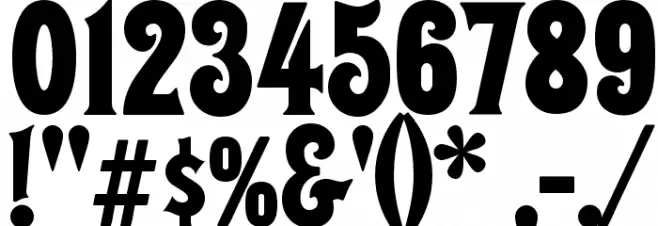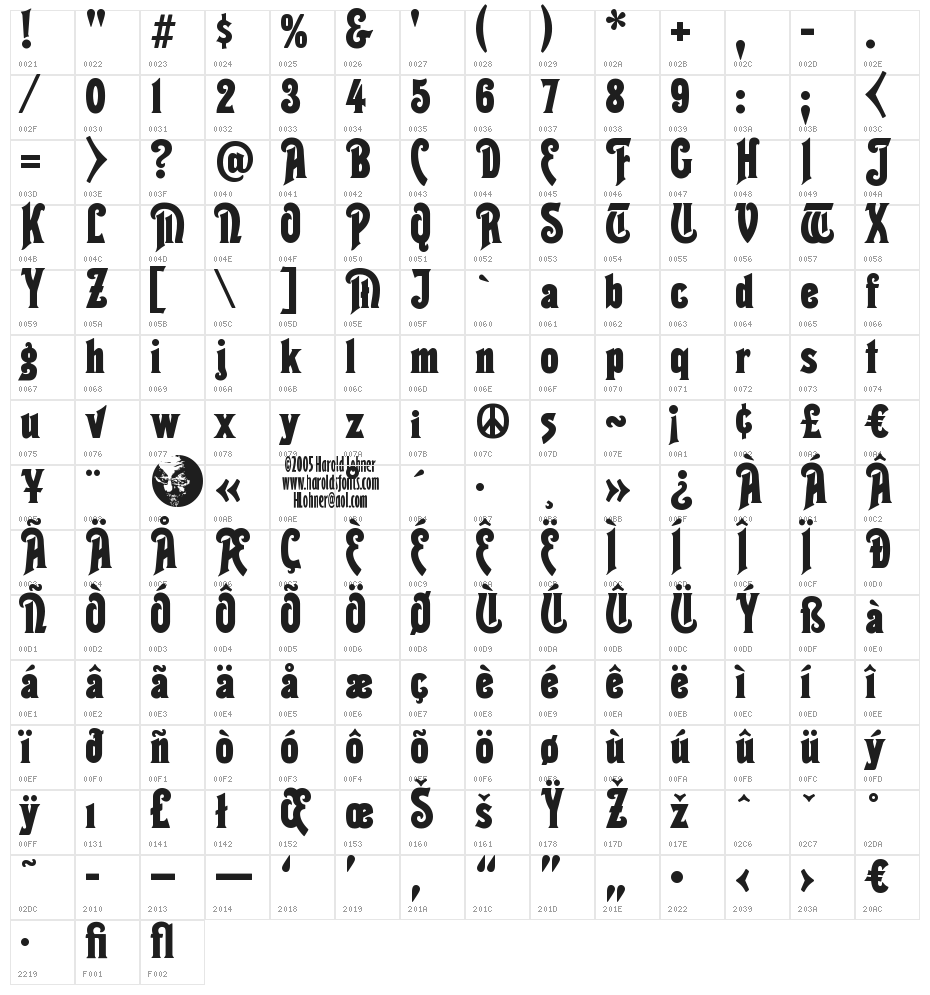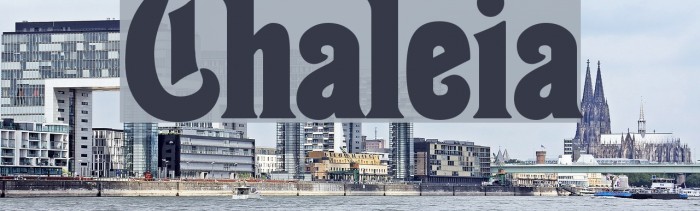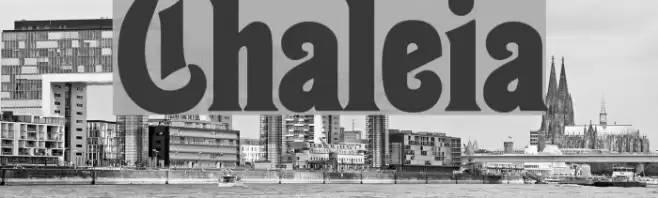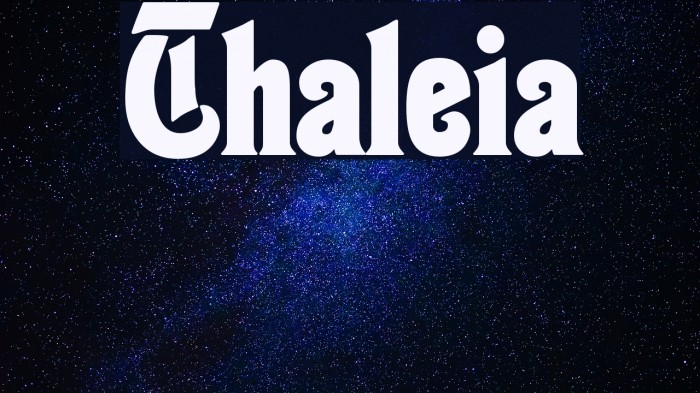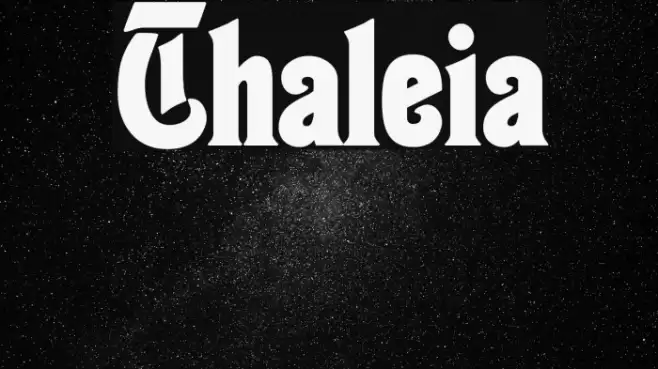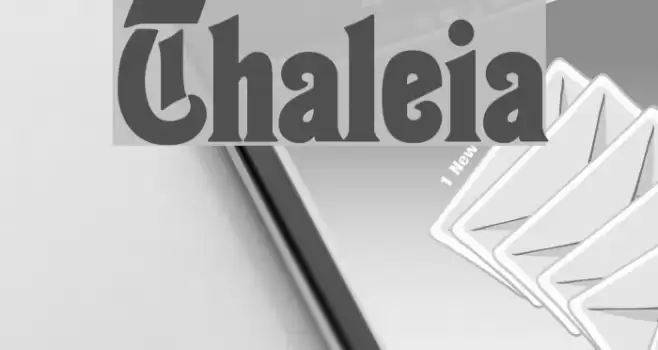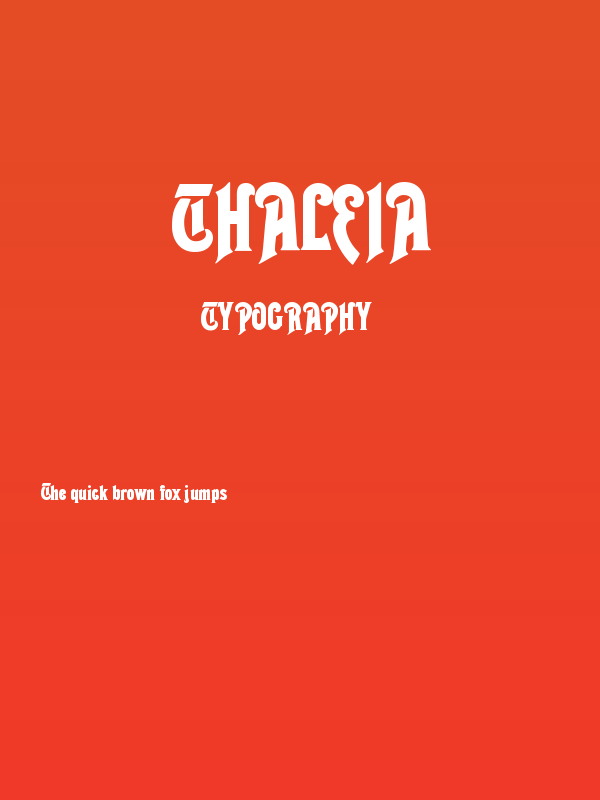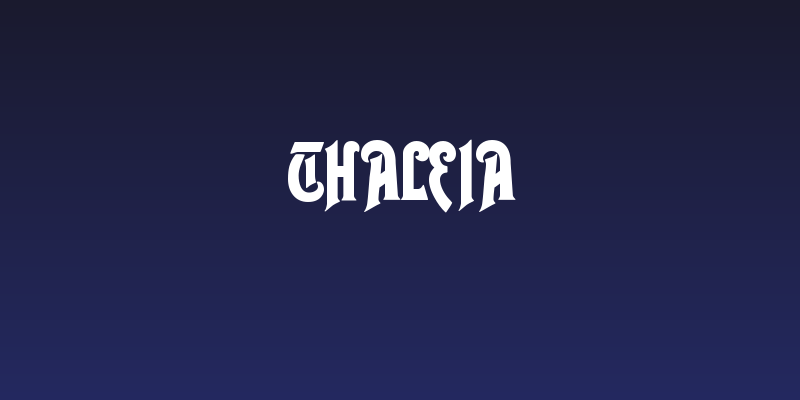
Thaleia Font
Thaleia Description
This font exhibits a bold and dramatic style, characterized by its thick strokes and sharp, angular serifs. The uppercase letters have a strong presence with a gothic influence, featuring pointed edges and a sense of grandeur. The lowercase letters maintain the boldness, with a slightly more rounded appearance that complements the uppercase. The numerals are equally bold, ensuring visibility and impact. Special characters are designed with the same attention to detail, making them stand out. Overall, the font conveys a sense of strength and authority, suitable for making a statement.
| Proposed Projects | Ideal for headlines, posters, branding, and any project requiring a strong, impactful typeface. |